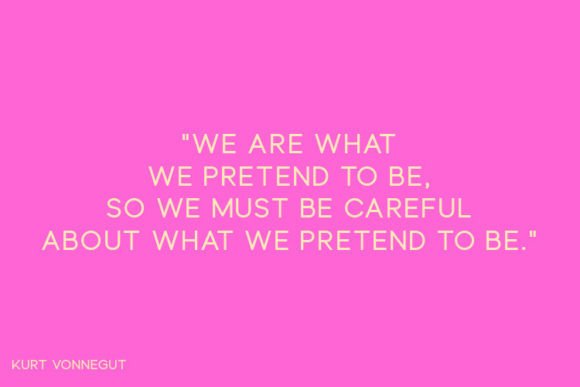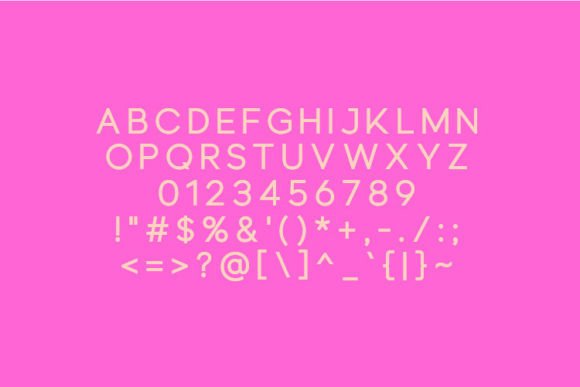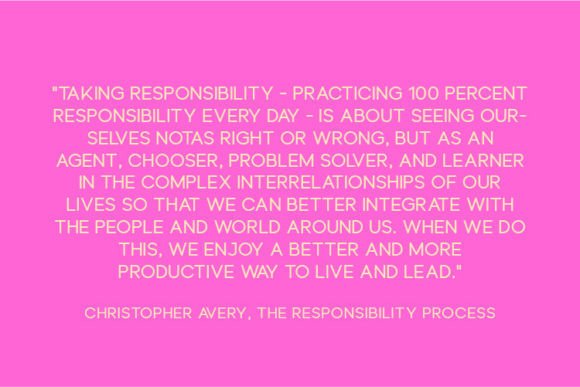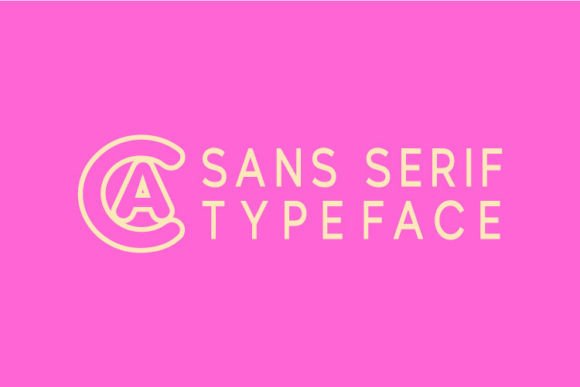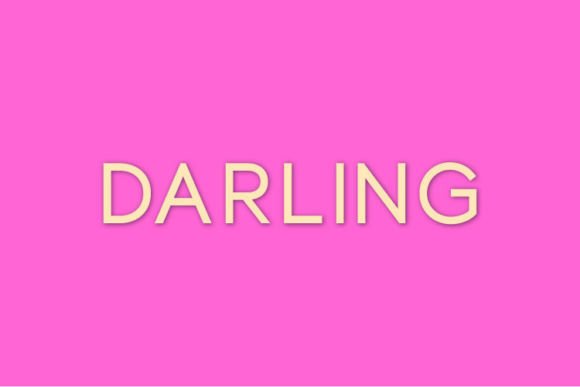
Introducing Darling Font: Elevate Your Designs with Modern Elegance
In the world of typography, a font can make or break a design. For designers and crafters looking for a typeface that exudes modern elegance and versatility, look no further than Darling Font. This stunning sans serif typeface is designed to elevate your designs, whether you’re working on logos, weddings, invitations, quotes, advertisements, print materials, magazines, or more.
What is Darling Font?
Darling Font is a contemporary sans serif typeface that boasts a classy and sophisticated aesthetic. It features a comprehensive character set, including upper characters, numbers 0-9, and a range of punctuation and symbols. This extensive character set makes Darling Font an extremely versatile choice for various design projects.
Key Features of Darling Font
- Modern Sans Serif Design: Darling Font features a clean and minimalist sans serif design, making it perfect for modern designs that require a touch of elegance.
- Comprehensive Character Set: The font includes upper characters, numbers 0-9, and a range of punctuation and symbols, ensuring you have everything you need to create stunning designs.
- Versatility: Darling Font is suitable for a wide range of design projects, from logos and branding to weddings, invitations, quotes, and more.
Darling Font is an excellent choice for designers and crafters who want to add a touch of sophistication to their work. Whether you’re creating:
- Logos and Branding: Darling Font’s modern design makes it perfect for logos and branding projects that require a contemporary look.
- Weddings and Invitations: The font’s elegant aesthetic makes it ideal for wedding invitations, save-the-date cards, and other wedding-related designs.
- Quotes and Typography: Darling Font’s clean design ensures that your quotes and typography projects stand out and are easily readable.
- Advertisements and Print Materials: The font’s versatility makes it suitable for advertisements, brochures, magazines, and other print materials.
Why Choose Darling Font?
With so many fonts available, why choose Darling Font? Here are a few reasons:
- Unique and Modern Design: Darling Font’s modern sans serif design sets it apart from other fonts, ensuring your designs stand out.
- Highly Versatile: The font’s comprehensive character set and clean design make it suitable for a wide range of design projects.
- Elegant Aesthetic: Darling Font’s classy design adds a touch of sophistication to any design project.
Darling Font is an exceptional sans serif typeface that offers a perfect blend of modern elegance and versatility. With its comprehensive character set, clean design, and classy aesthetic, it’s an excellent choice for designers and crafters looking to elevate their designs. Whether you’re working on logos, weddings, invitations, quotes, advertisements, print materials, magazines, or more, Darling Font is sure to impress.